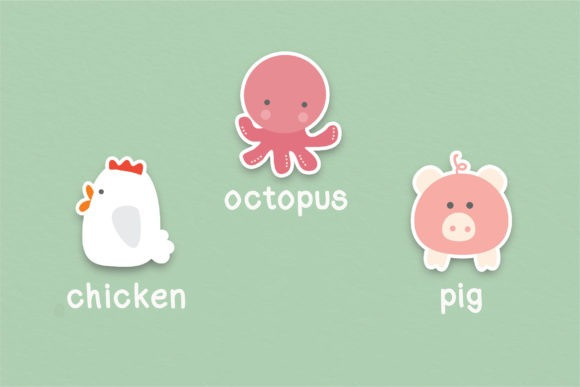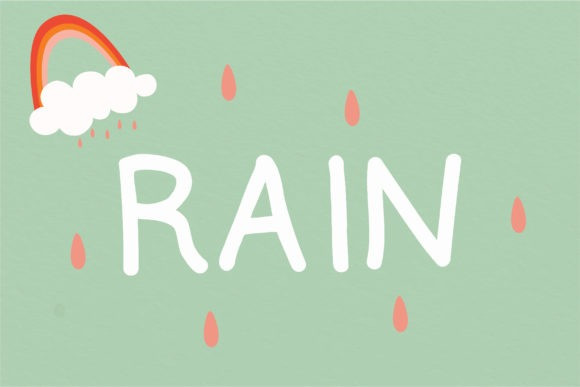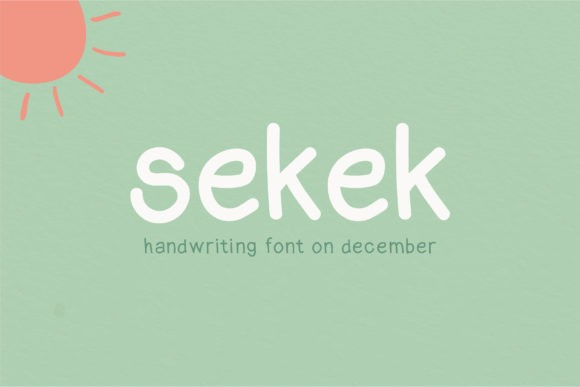
Sekek Font
Sekek Font is a cute display font. It embodies playfulness and authenticity and is the perfect choice for any children’s activity or school project. Add this chunky lettered font to your designs and notice how it makes them come alive